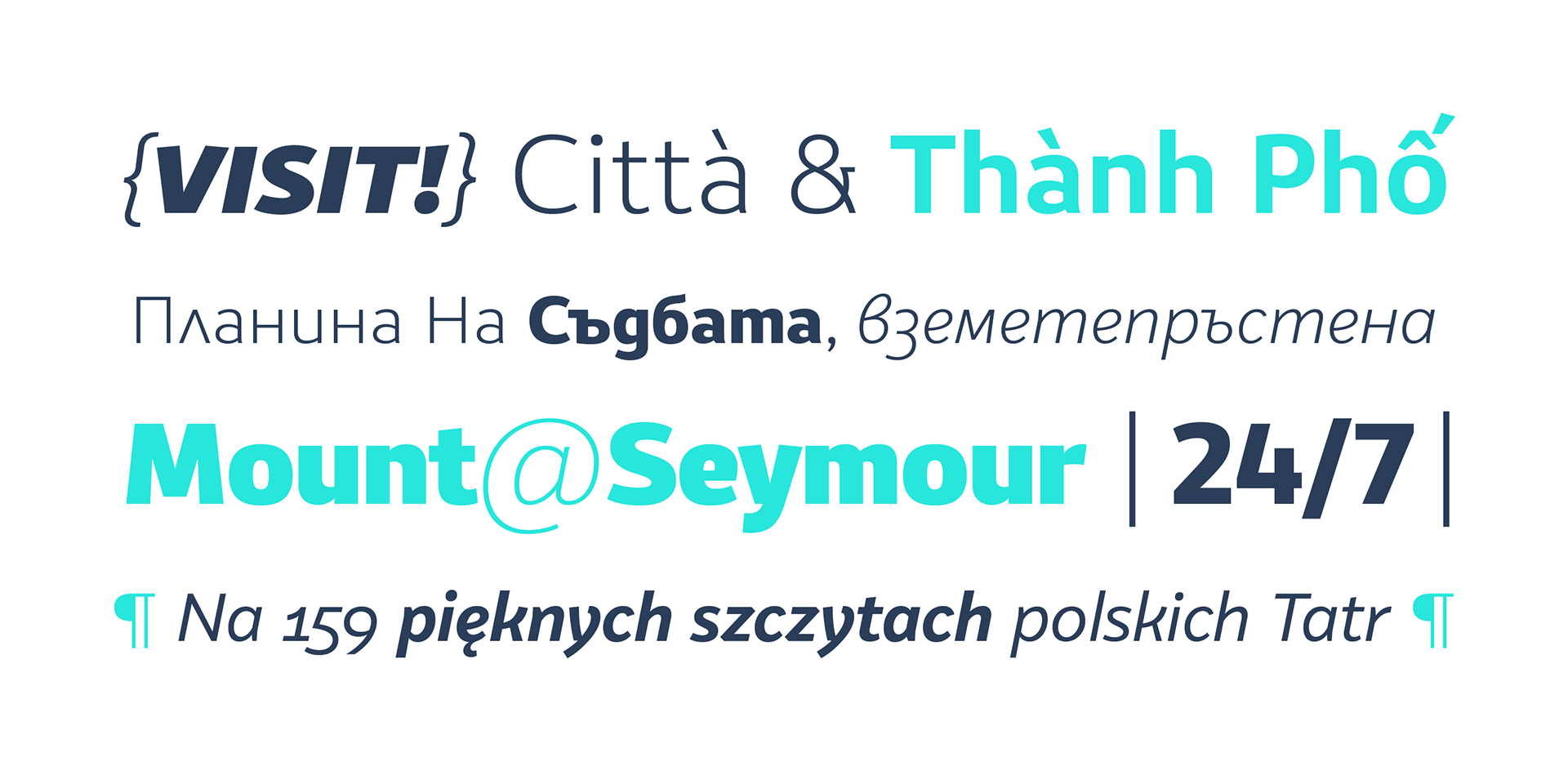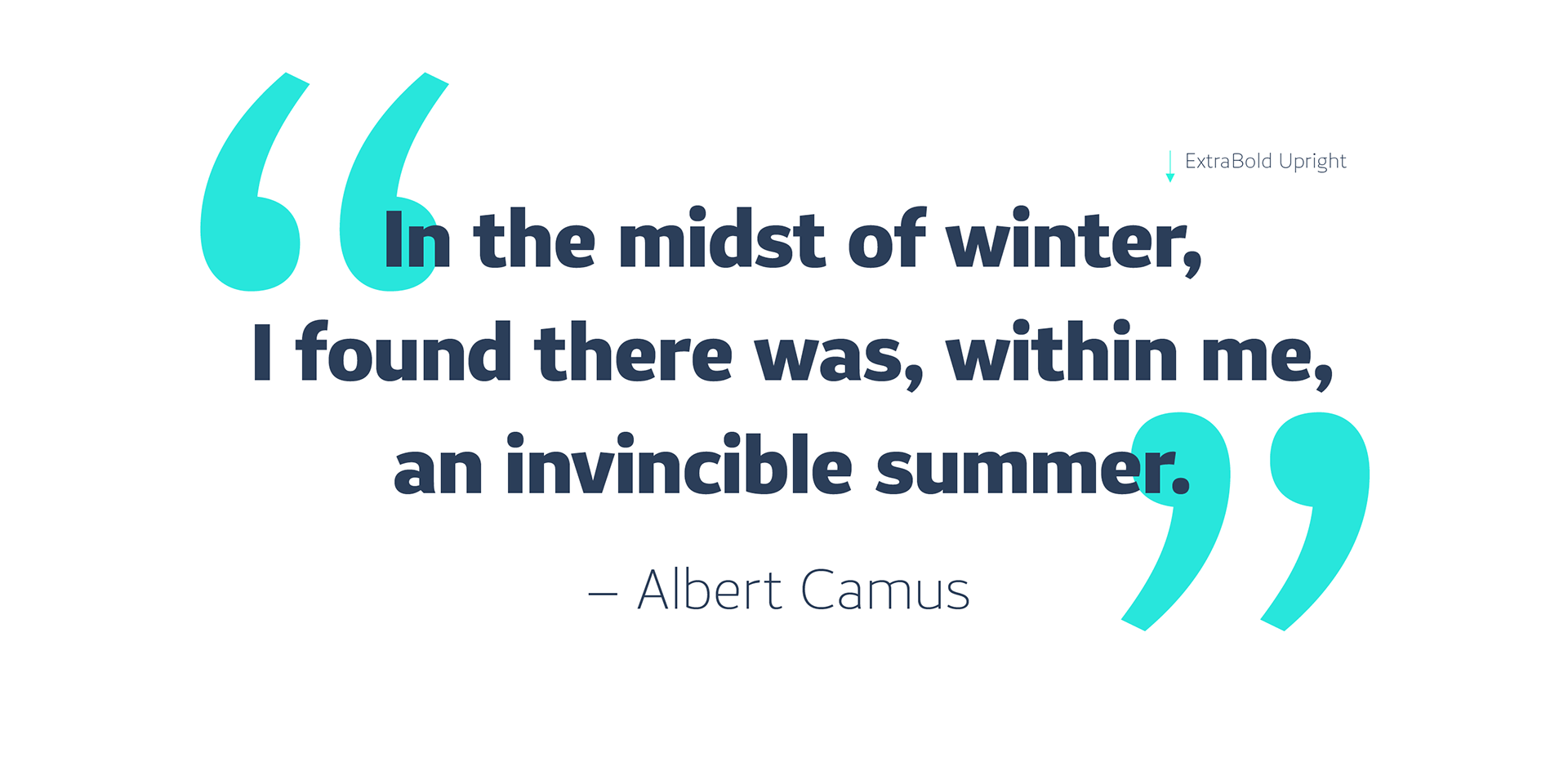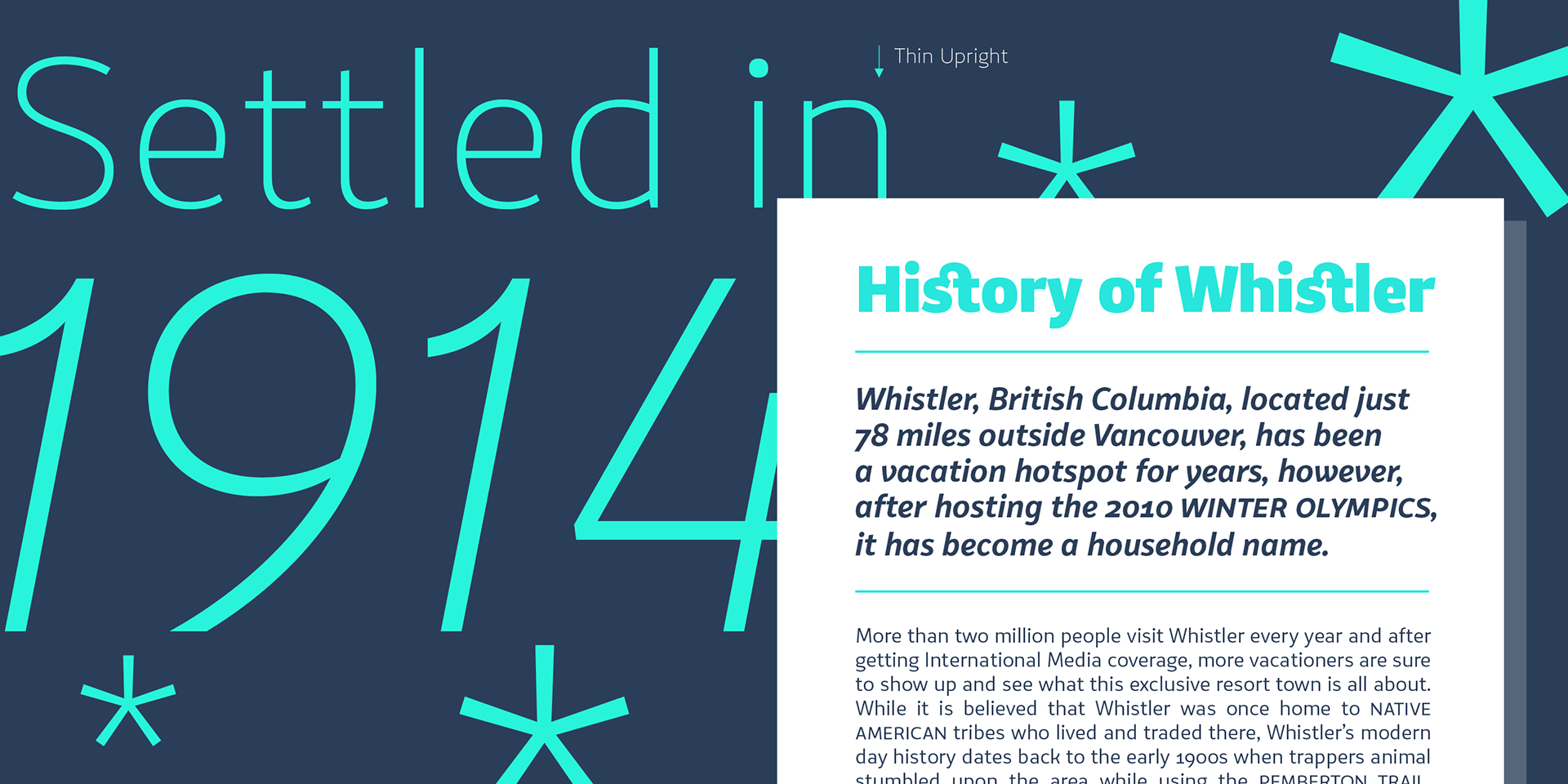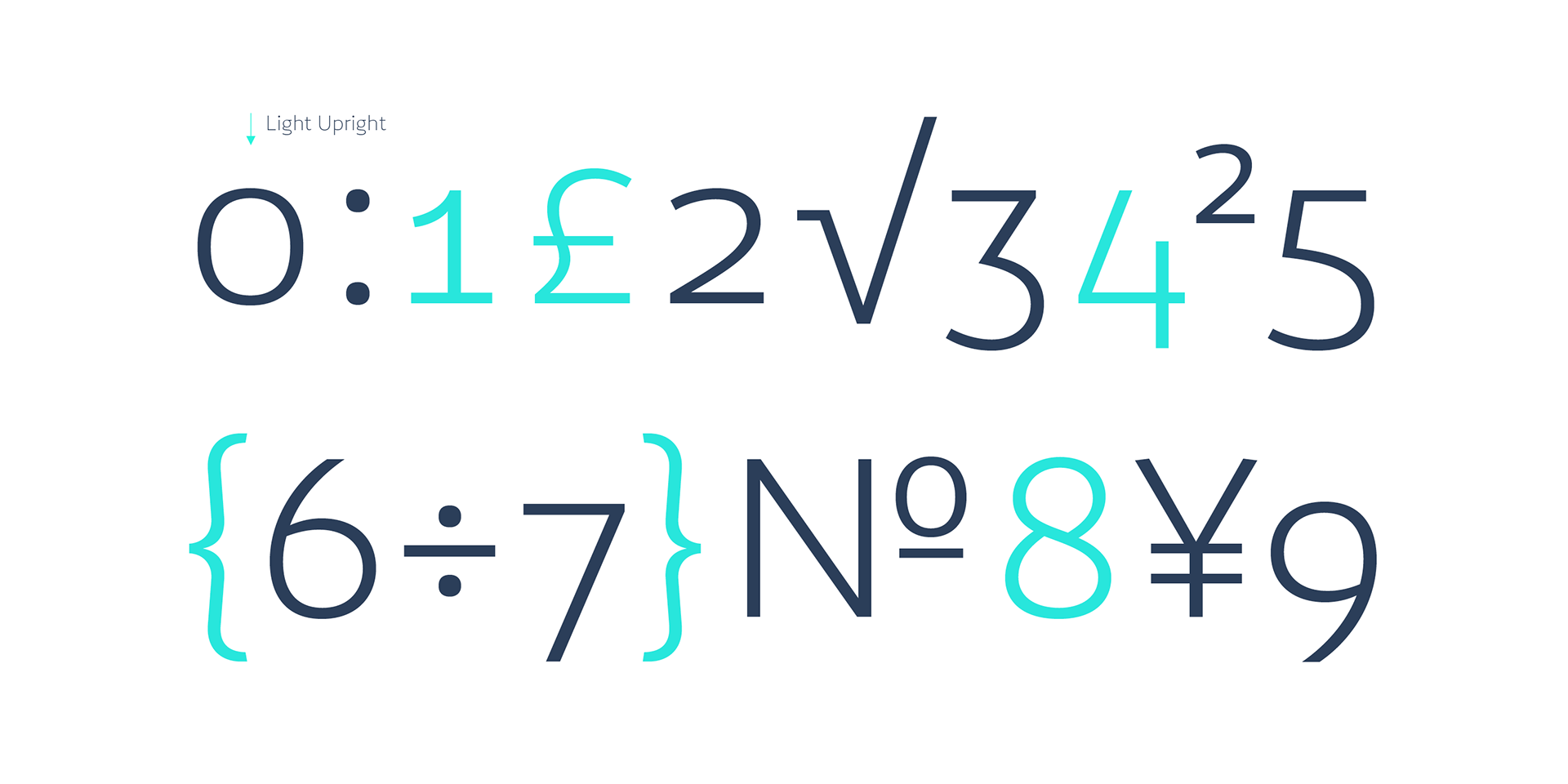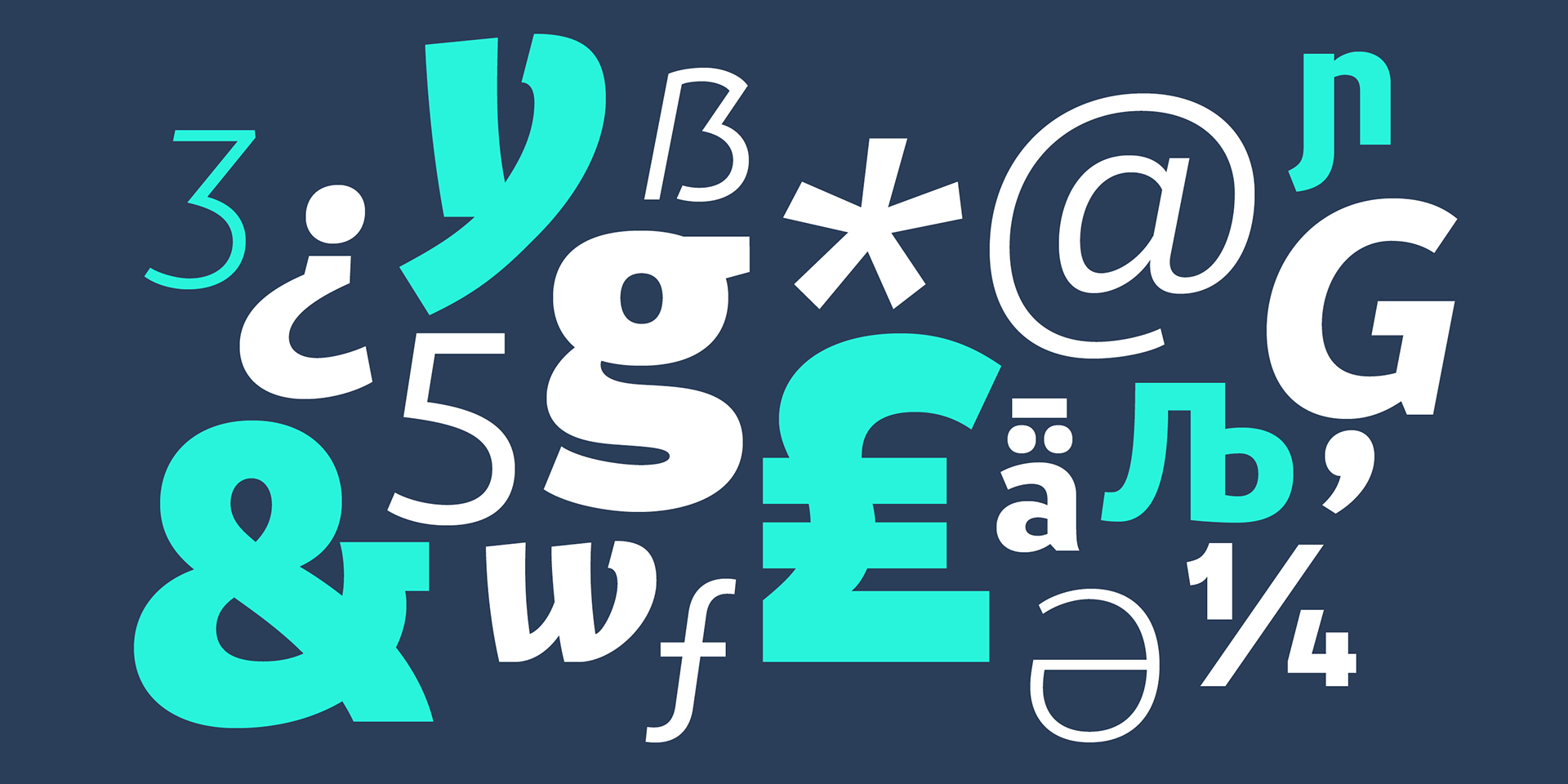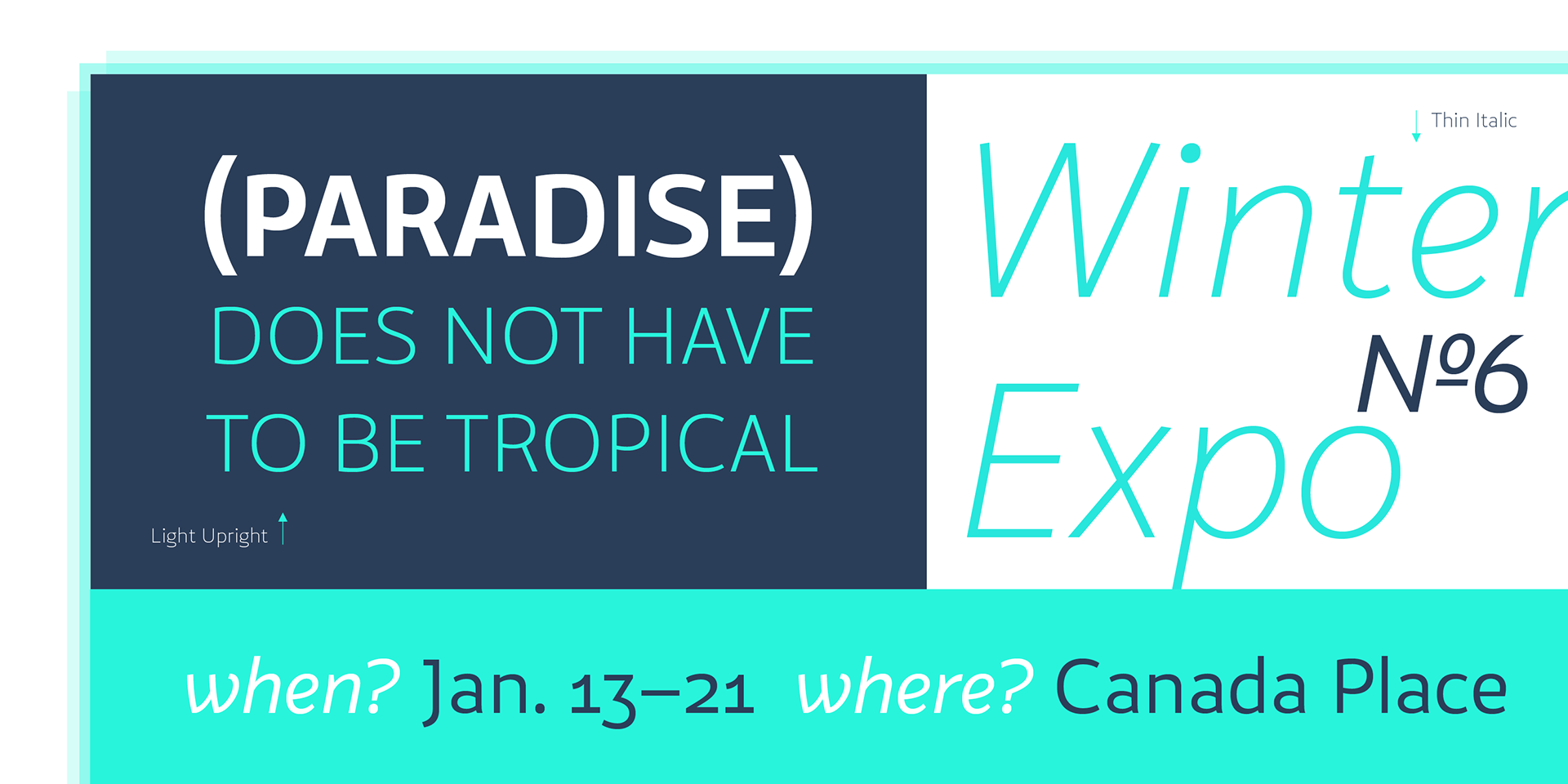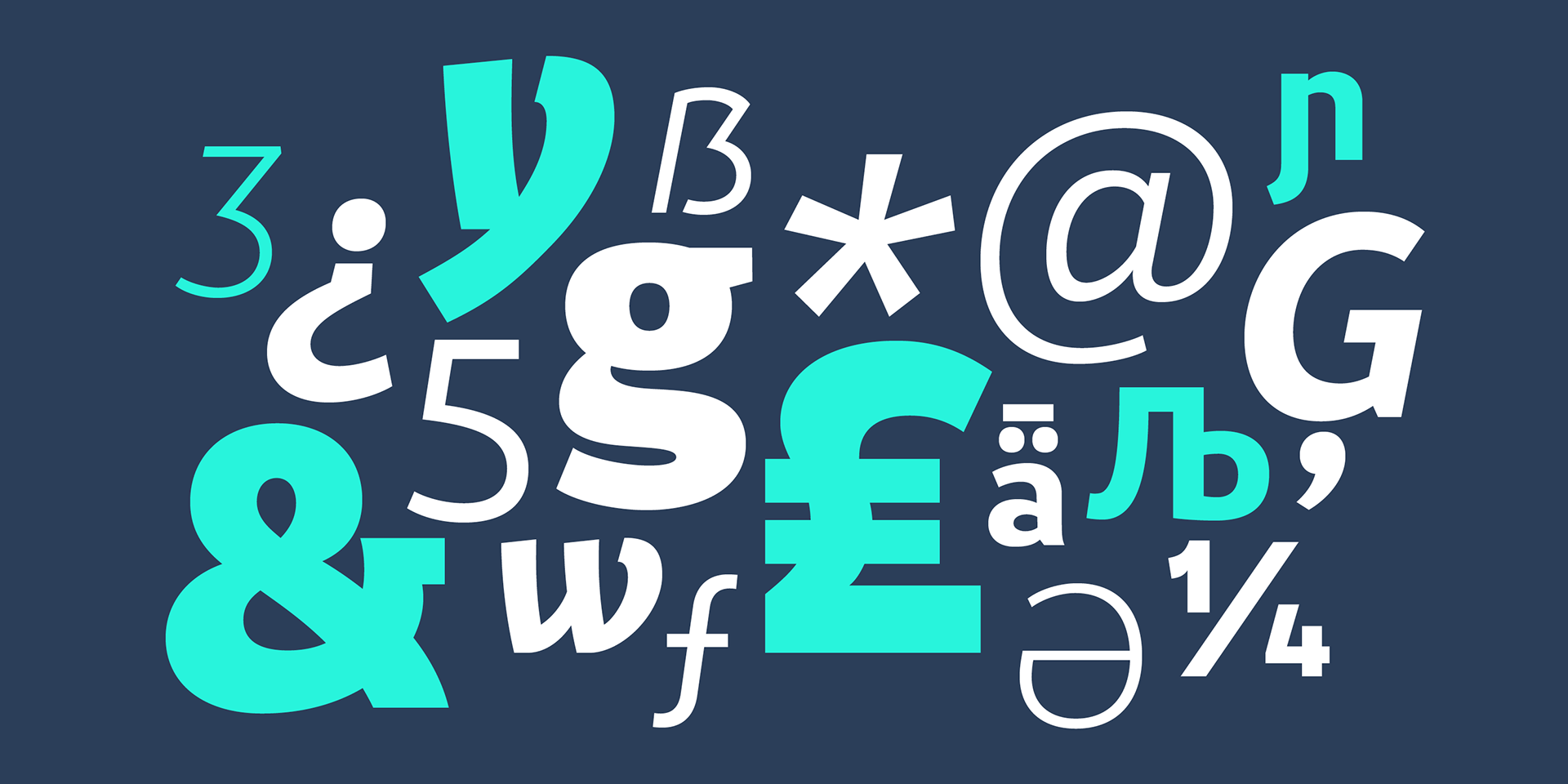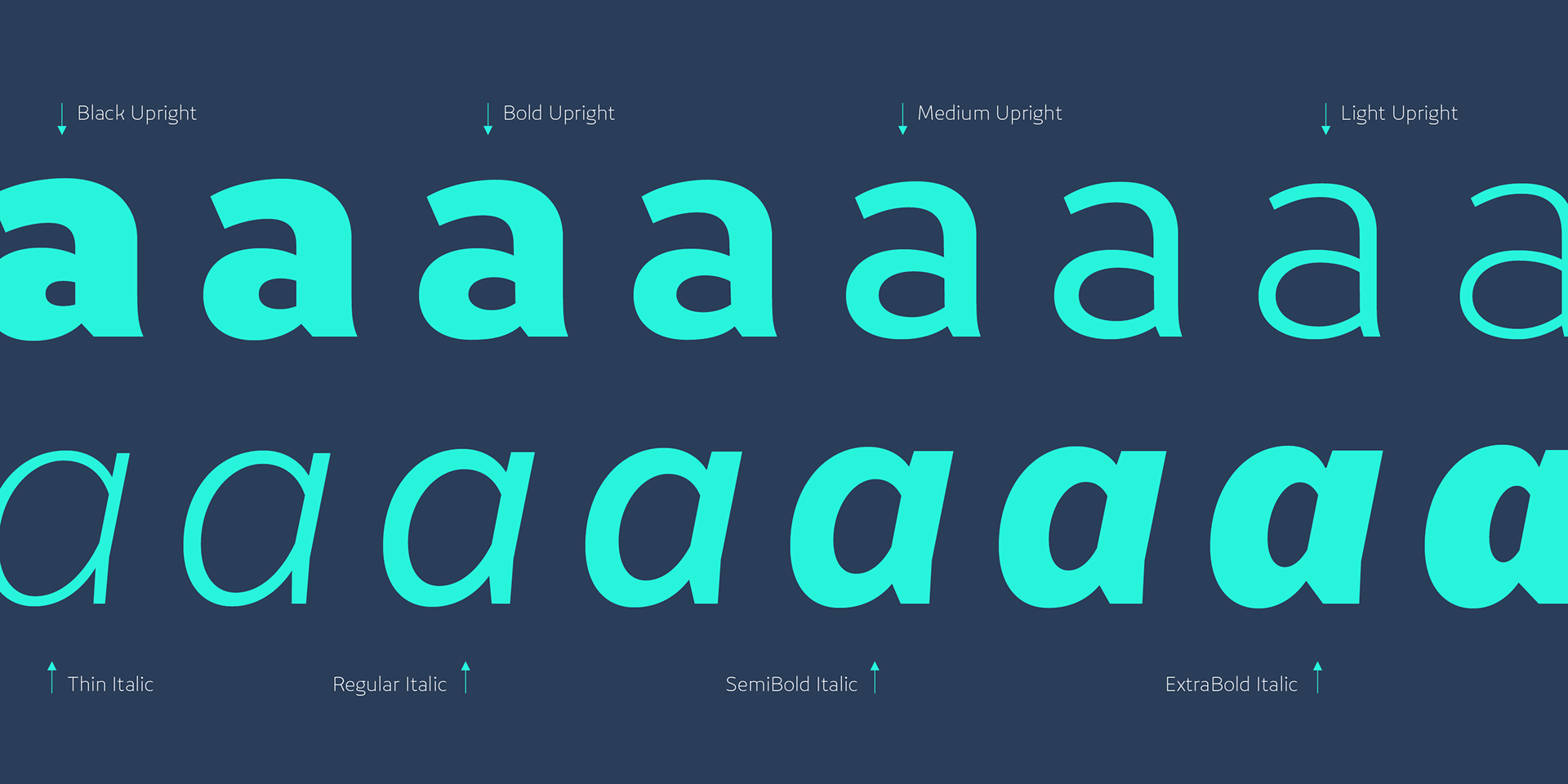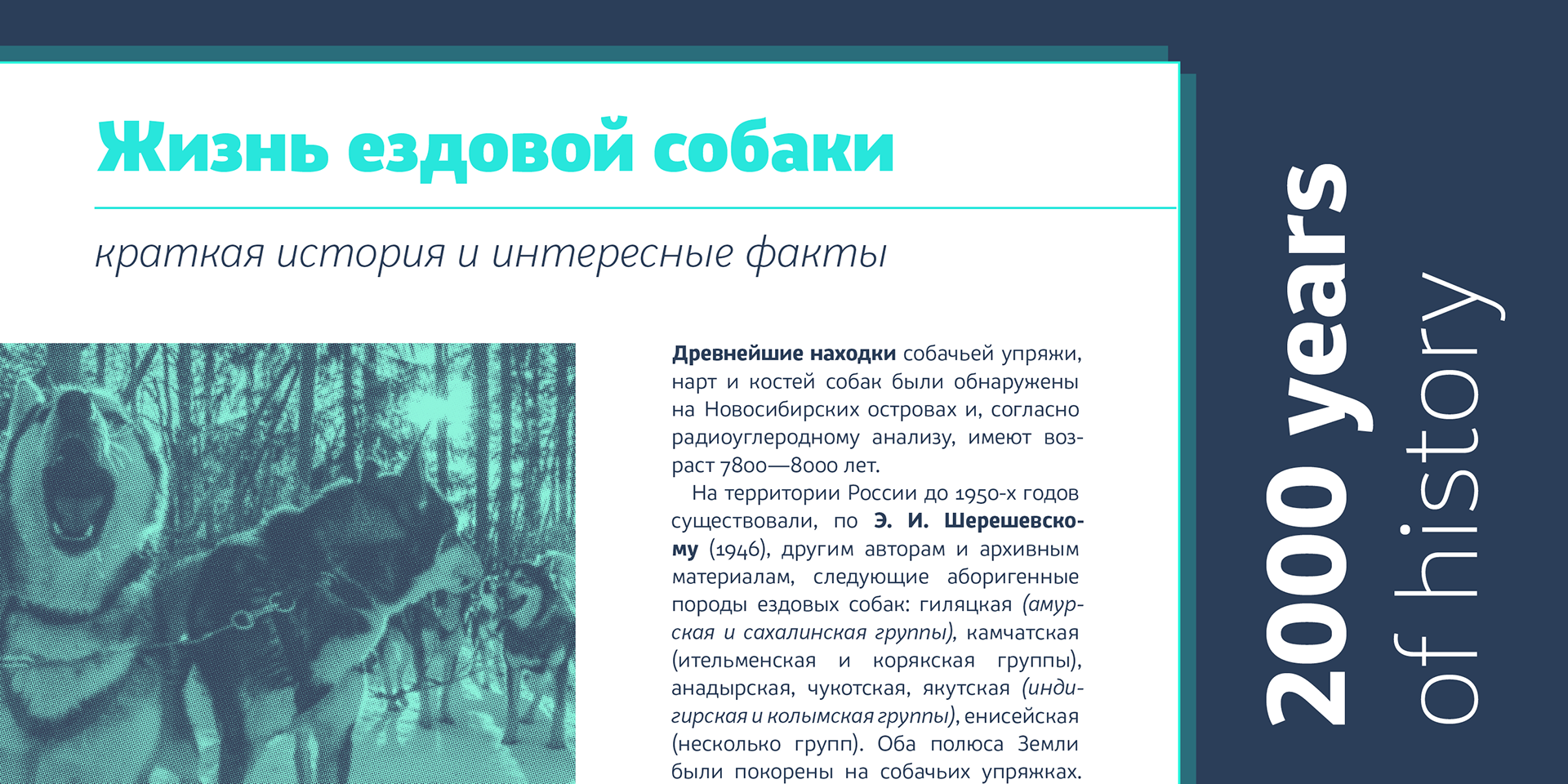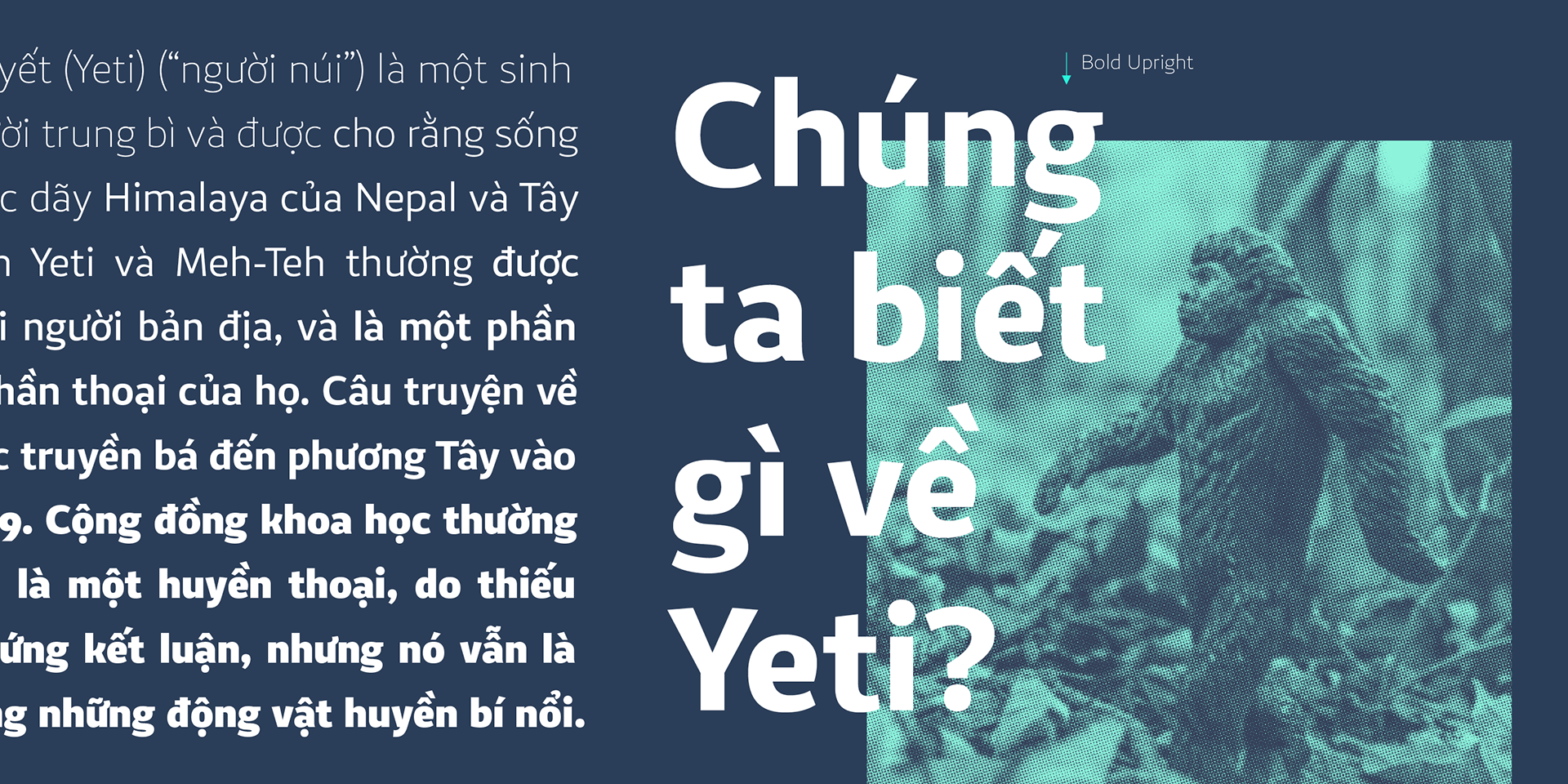
VanSans is a humanist sans family, created to bring a fun and warm spirit into the market of repetitive, simplistic designs. It was inspired by the city of Vancouver, merging the industrial feel with the friendliness and openness of its’ people. It features large x-height and open counters, making it legible and clear both in printed text and screen. The family is made to be flexible and fit to any hierarchy a user might need. With weights ranging from Thin to Extrabold, it features small caps, true italics and an extensive character set of Latin and Cyrillic. VanSans is ready to be challenged.